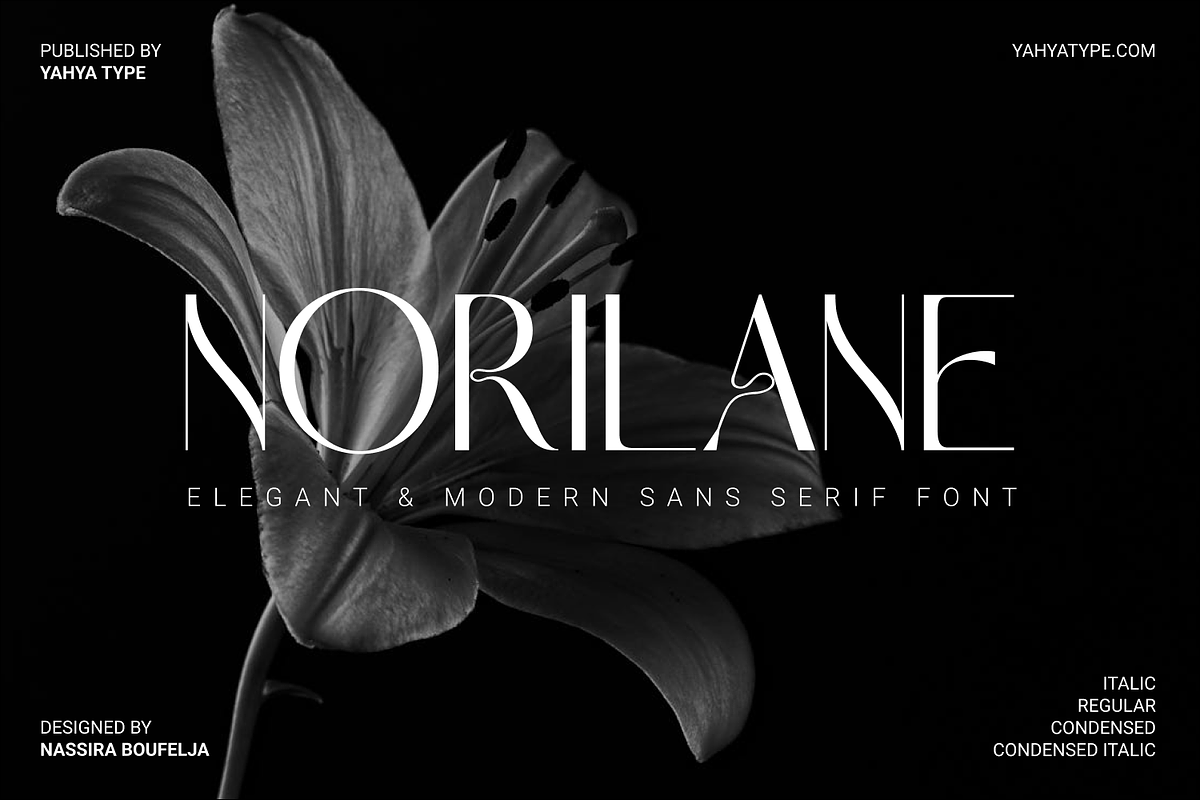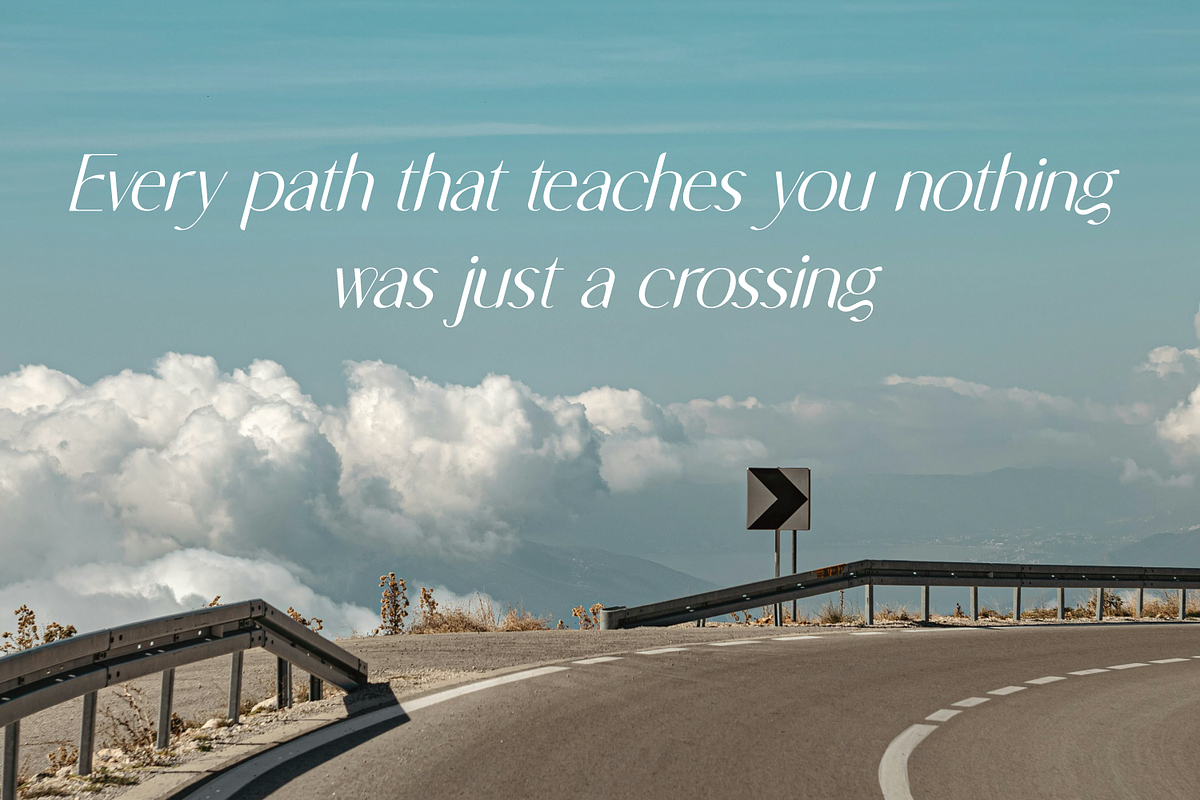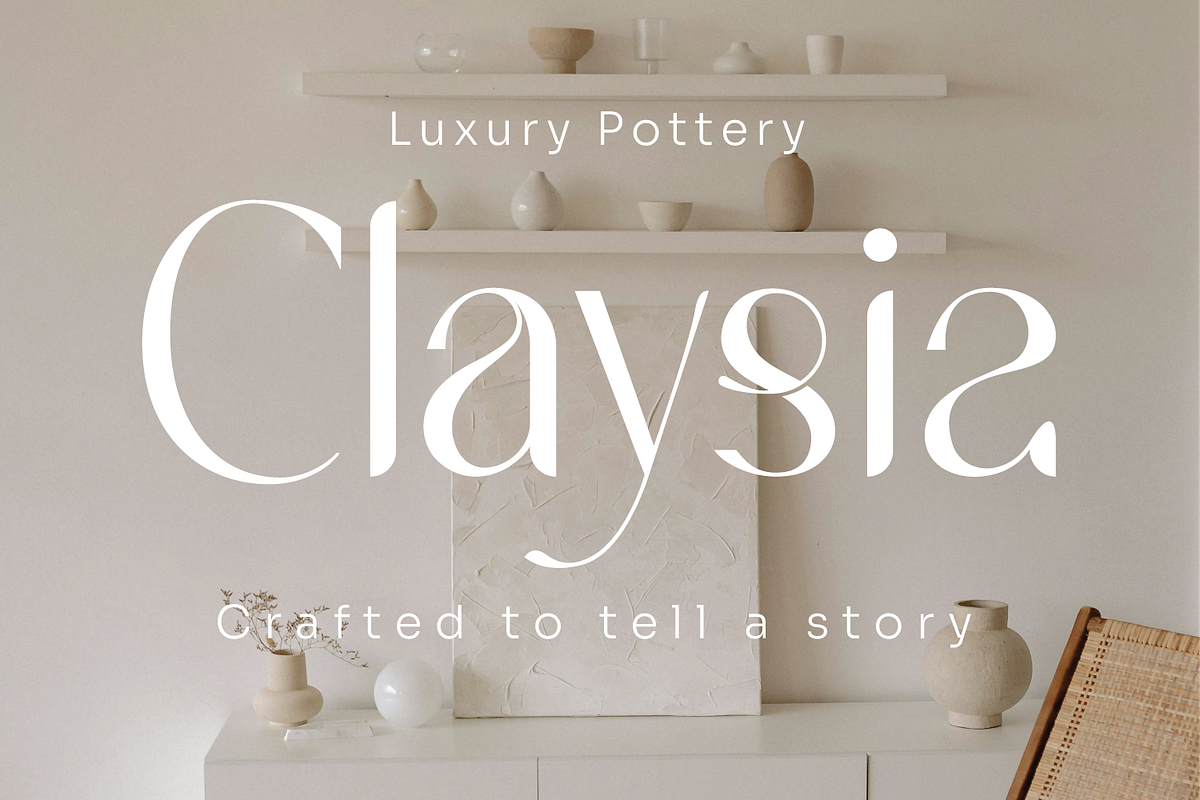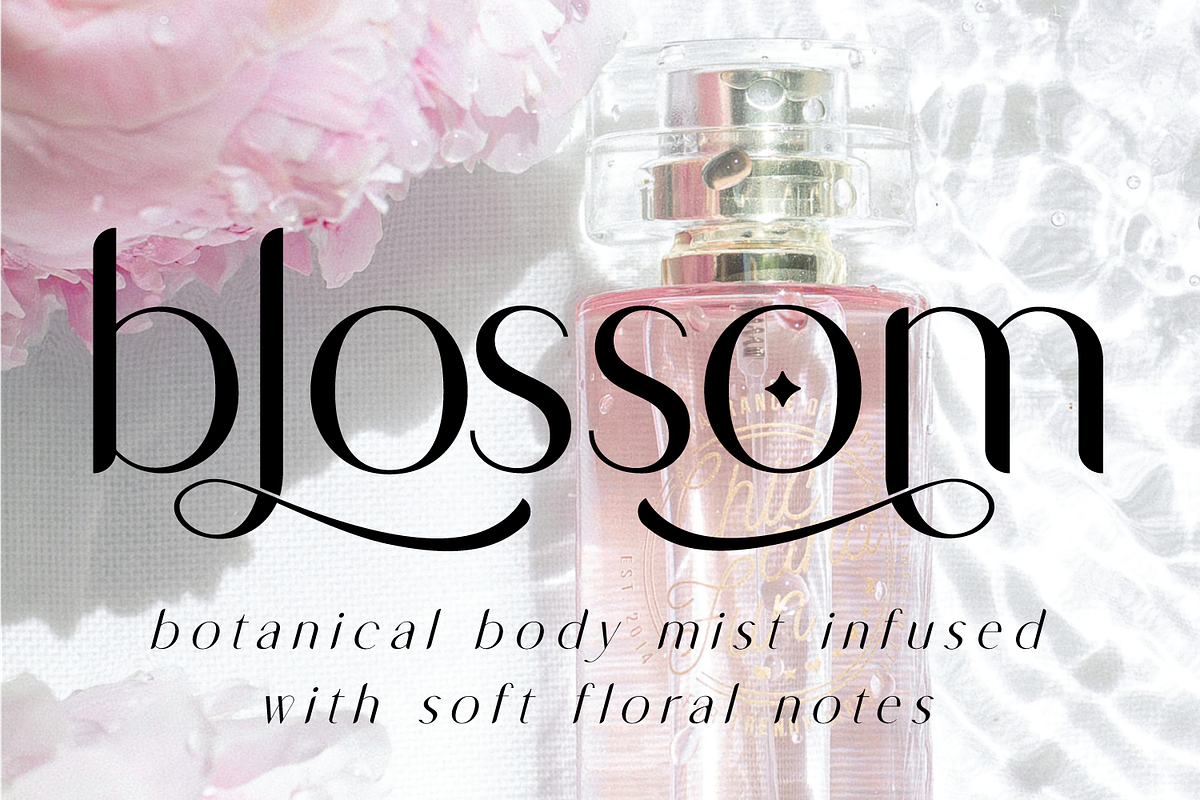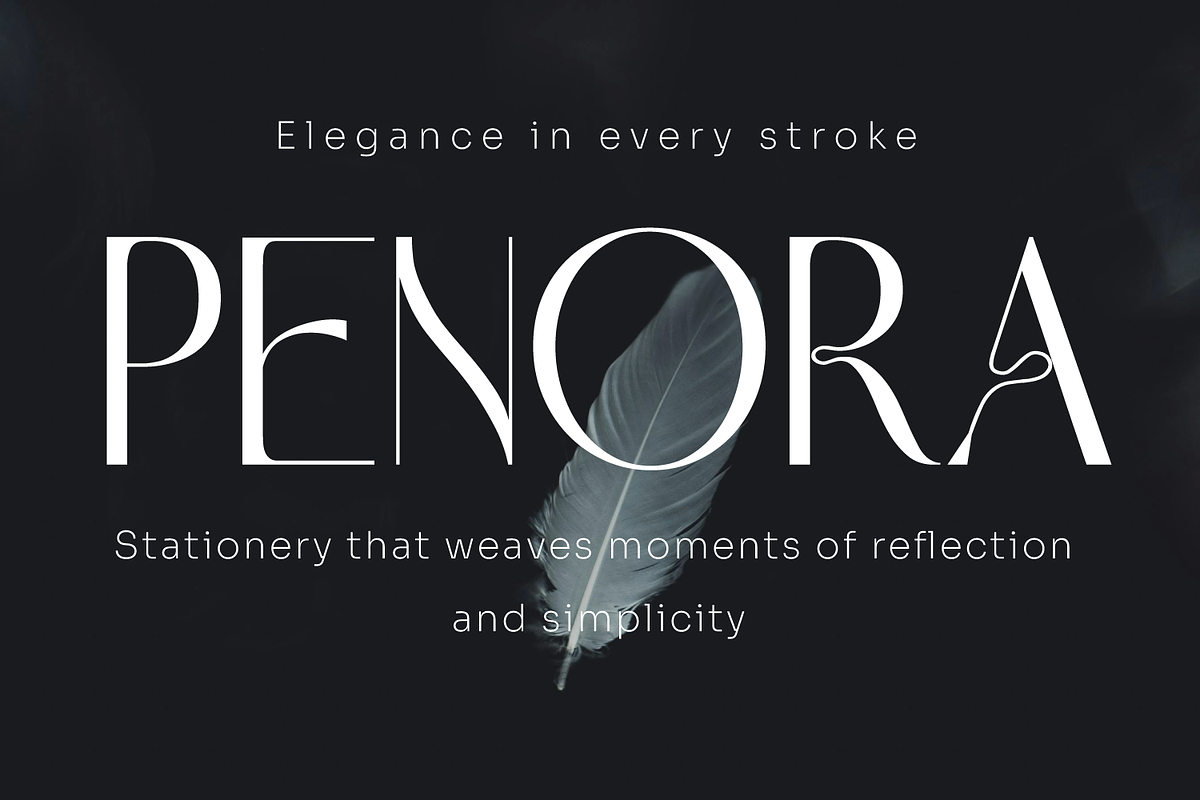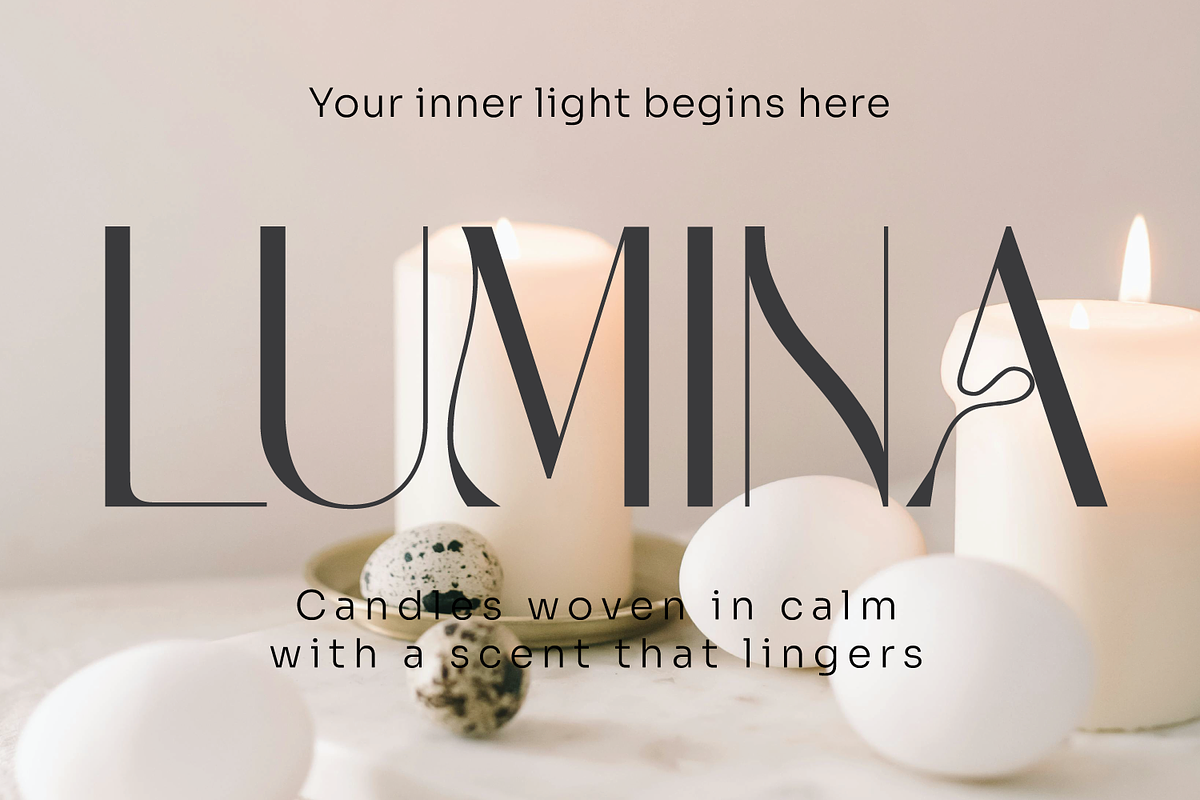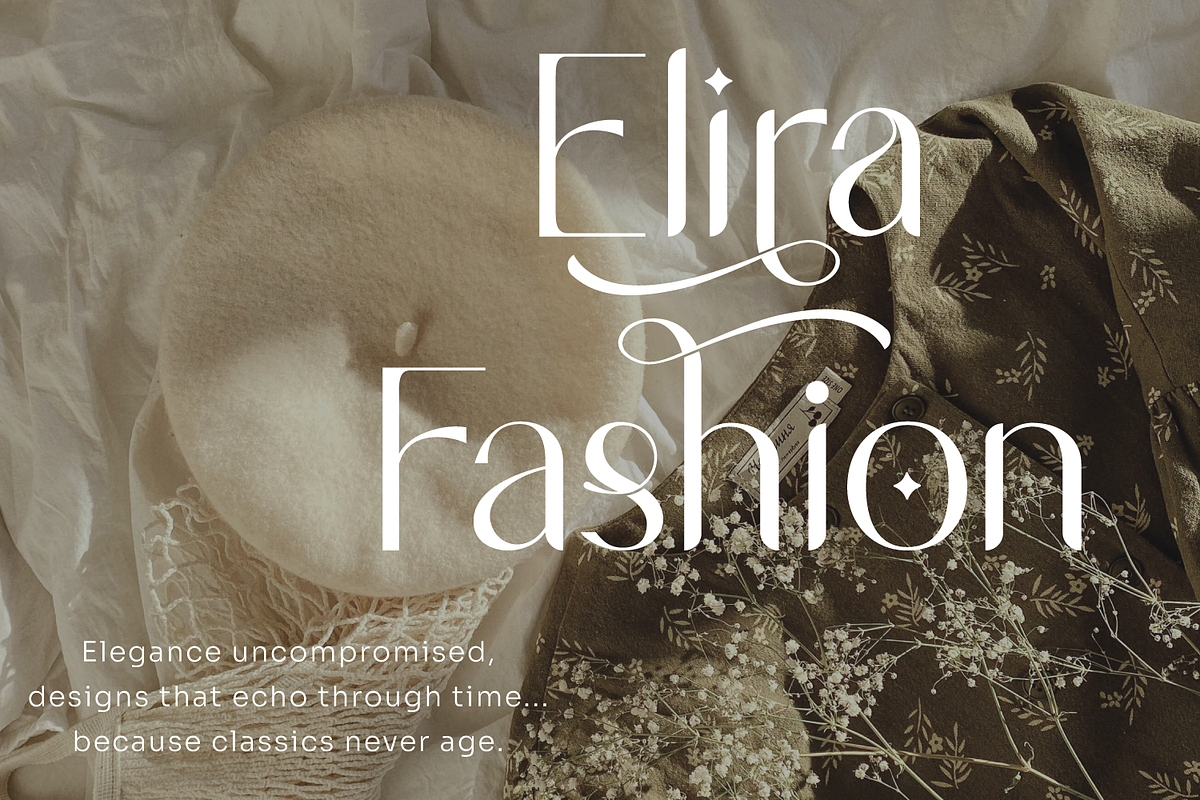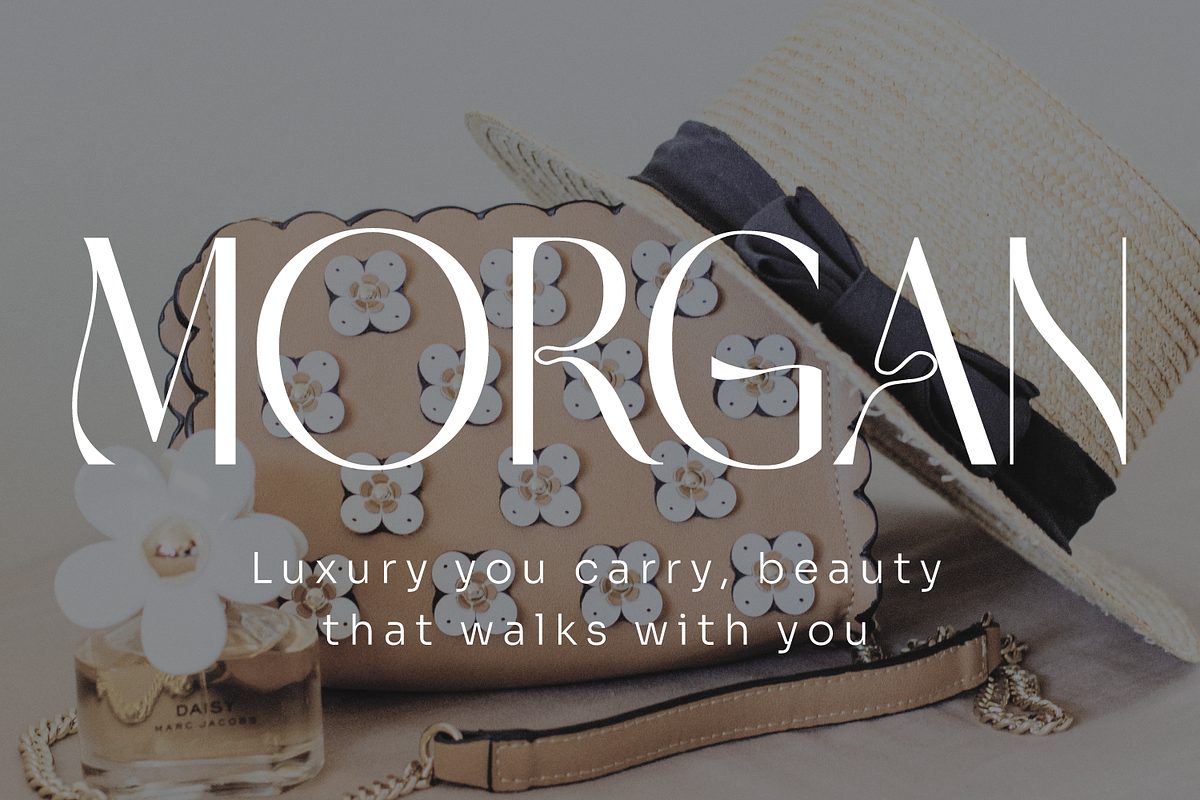
Norilane – Elegant Modern Sans Serif
Norilane is an elegant and modern sans serif font designed to bring sophistication and clarity to your creative work. With its refined letterforms and subtle artistic details, Norilane strikes the perfect balance between minimalism and personality.
This typeface is ideal for branding, editorial design, logos, fashion campaigns, and high-end packaging. Its clean structure paired with unique character shapes makes it stand out while remaining highly readable.
Norilane comes in multiple styles to give you flexibility across different design needs—from bold headlines to delicate layouts.
Italic
Condensed
Condensed Italic
Perfect for
Branding, logos, magazines, social media, luxury packaging, websites, and modern typography projects.